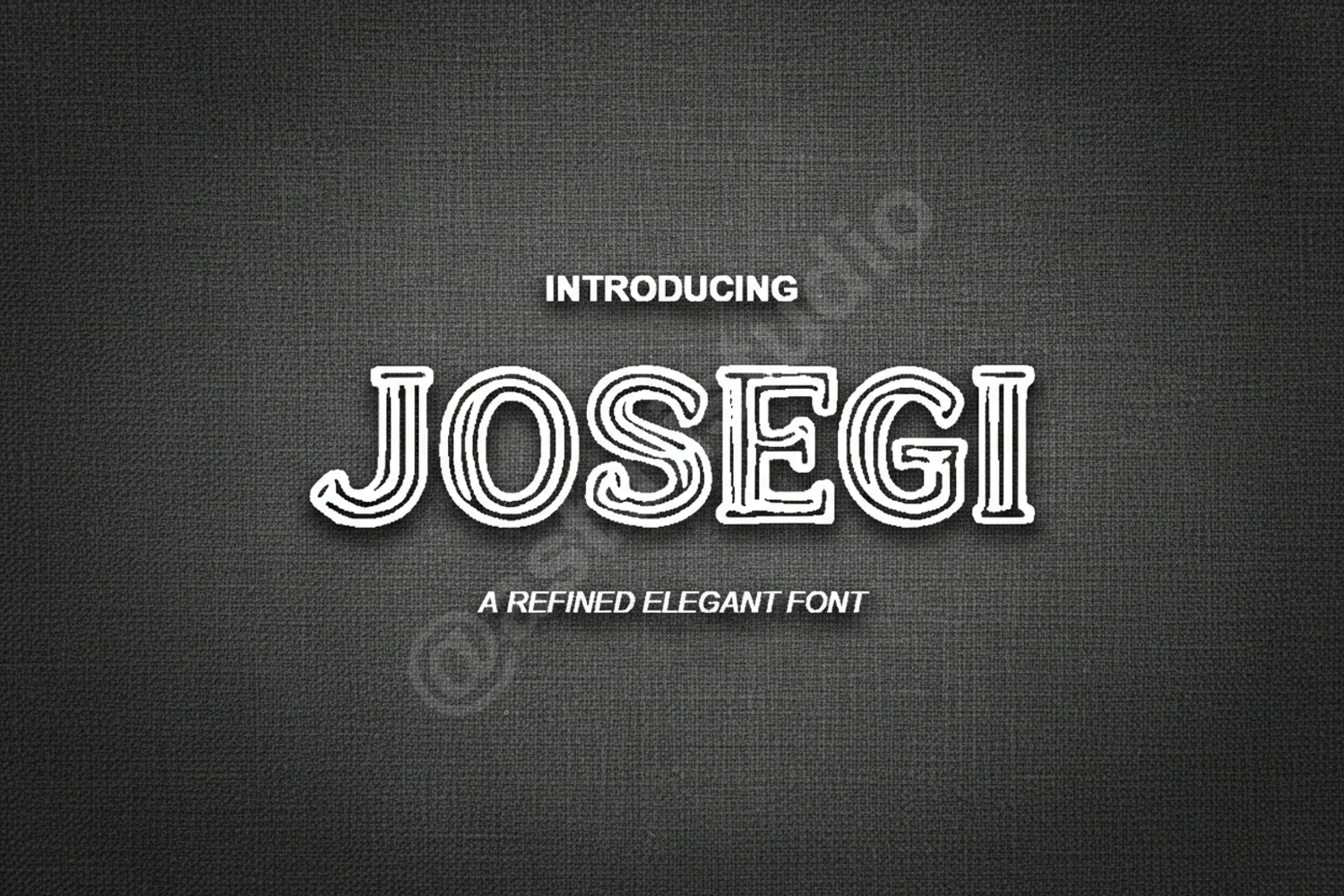
Josegi - Modern Elegant Serif Typeface
Josegi
Elevate your creative projects with Josegi, a premium serif font that blends timeless elegance with modern sophistication. Designed with clean lines and unique character shapes, Josegi offers a professional touch to any design layout. Whether you are working on a luxury brand identity or a minimalist editorial project, this font provides the versatility and style you need to stand out.
- Branding and Identity: Perfect for high-end logos and brand guidelines.
- Editorial Design: Ideal for magazine headers, book covers, and layouts.
- Wedding Stationery: Adds a touch of class to invitations and RSVP cards.
- Social Media: Great for elegant quotes and aesthetic Instagram posts.
- Product Packaging: Enhances the visual appeal of premium goods.